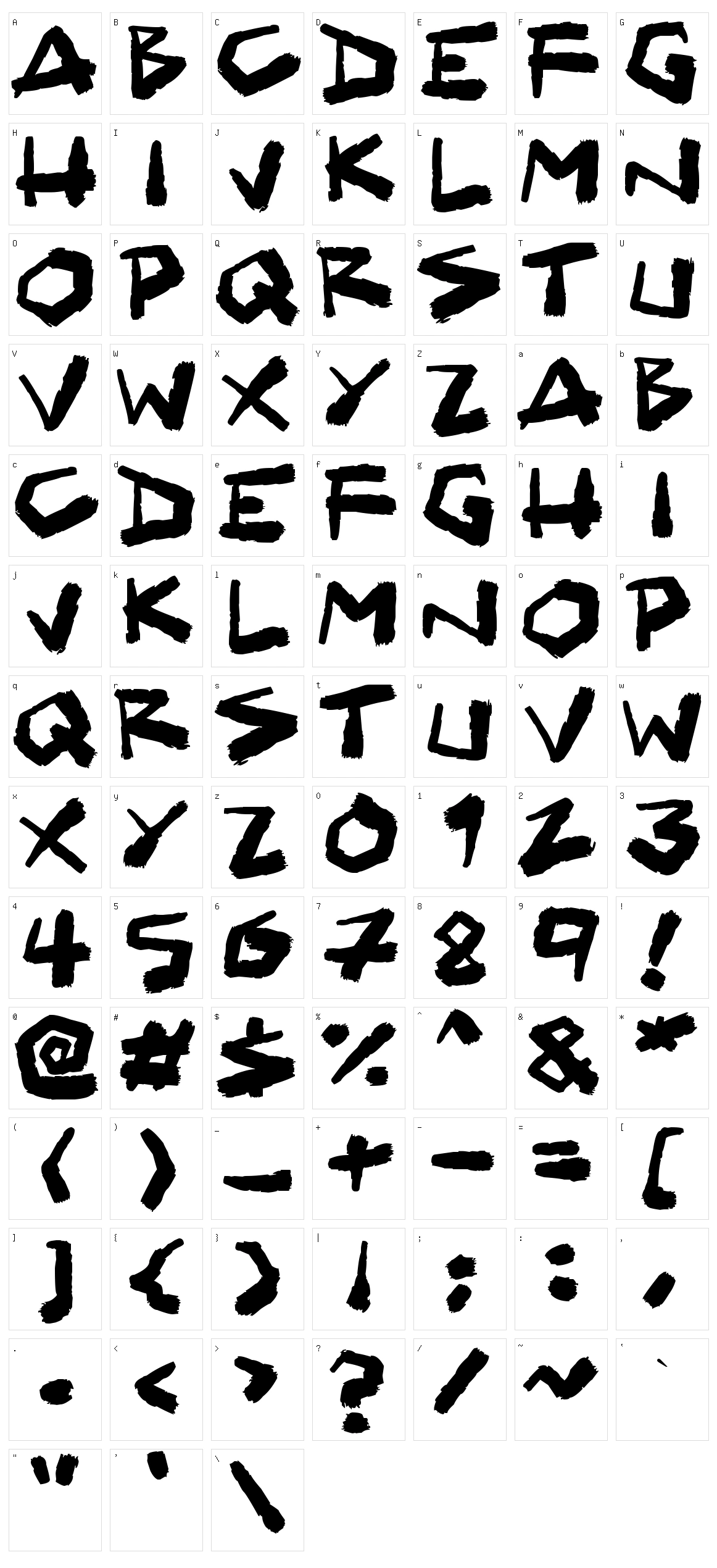
The free font Crazy Guy is carefully designed by Hawtpixel, showcasing a thoughtful balance of creativity and usability and falls under the Trash font style. When you download the ZIP file, it contains only 120.46 KB of font files, making it lightweight and quick to download. Please review the license details below to understand permitted usage and distribution rights. If license information is not available, we recommend using this font for personal projects only or contacting the author directly for commercial usage permissions.